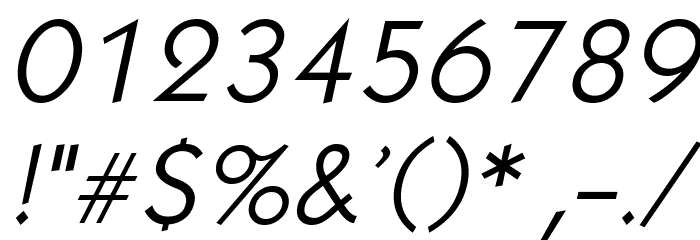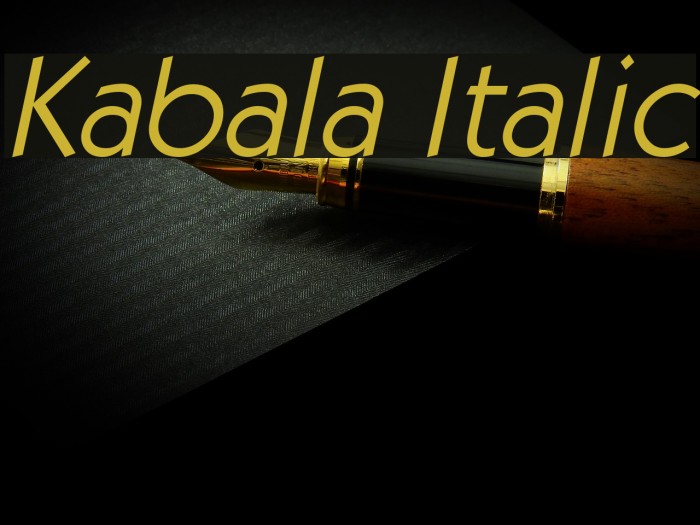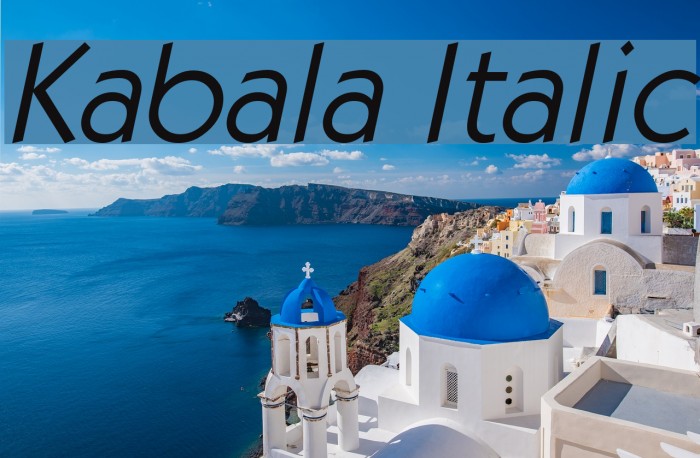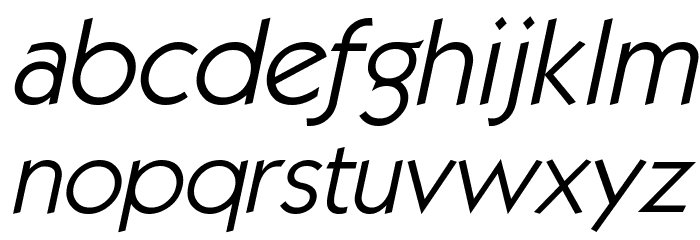
Kabala Italic Font
This font features a sleek and modern italic style with smooth curves and a slight slant, giving it a dynamic and elegant appearance. The characters are well-proportioned, maintaining a consistent flow throughout the alphabet. Uppercase letters are slightly taller than the lowercase, providing a clear distinction. The numerals are designed to match the overall aesthetic, ensuring readability and style. Special characters are included, offering versatility for various uses. The font's clean lines and contemporary feel make it suitable for a wide range of applications.
A modern italic font with smooth curves and a dynamic, elegant style.
• Proposed Projects: Ideal for branding, editorial design, advertising, and digital media where a modern and stylish look is desired.